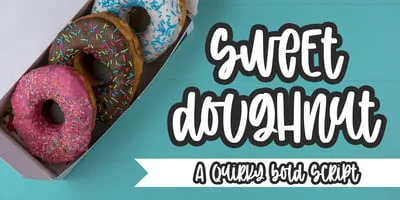
Sweet doughnut Font
Sweet Doughnut Font
The Sweet Doughnut Font is a delightful and playful choice for projects that need a touch of whimsical, handcrafted charm. Its bubbly, rounded letterforms and friendly appearance make it an excellent fit for branding for bakeries, coffee shops, and children's products. This font is perfect for creating cheerful posters, inviting social media graphics, and fun packaging designs that aim to evoke warmth and happiness. The Sweet Doughnut Font brings a sense of joy and sweetness to any design, making it a powerful tool for visual storytelling that connects with a wide and friendly audience.
What makes this font so exciting is its unique ability to combine a handcrafted aesthetic with a clean and professional finish. The Sweet Doughnut Font is designed to look like it was created by hand, with slightly irregular shapes and a soft, organic feel, yet it maintains high legibility and balance. This balance of quirky charm and polished design makes it incredibly versatile. It works well in large sizes for headlines where its personality can shine, and it remains readable in smaller sizes for taglines and short phrases. Its friendly nature makes it a perfect choice for brands that want to appear approachable and accessible.
The Sweet Doughnut Font family often includes various weights and styles, giving you more creative options. This might include a regular weight for general use, a bold weight for added impact, and possibly a more condensed or outlined version. This variety allows you to create a cohesive typographic system that uses different styles to create visual hierarchy and interest. The Sweet Doughnut Font is an ideal way to explore these different options and see how they can work together to bring a consistent and cheerful vibe to all your design materials, from a single logo to a full brand identity.
By choosing the Sweet Doughnut Font, you’re opting for a typeface that is full of character and positive energy. It’s a font that works hard to not only convey information but also to create an inviting and delightful experience for the viewer, ensuring your projects are memorable and well-received.